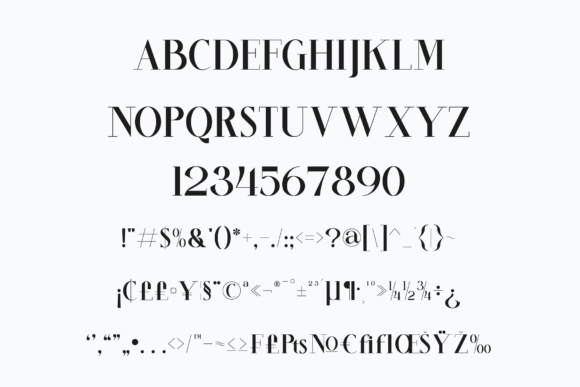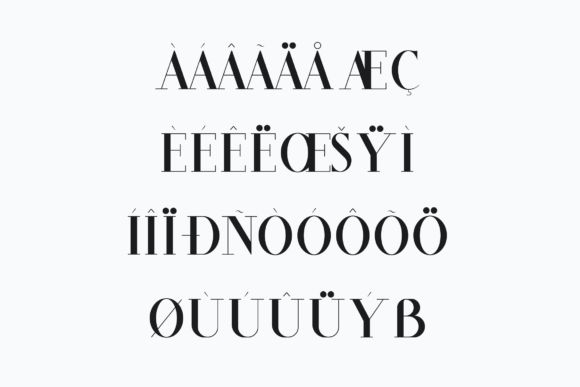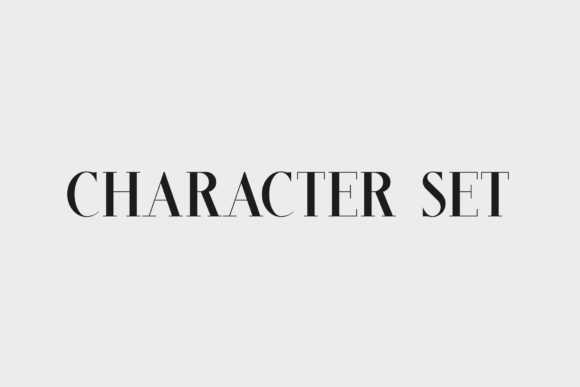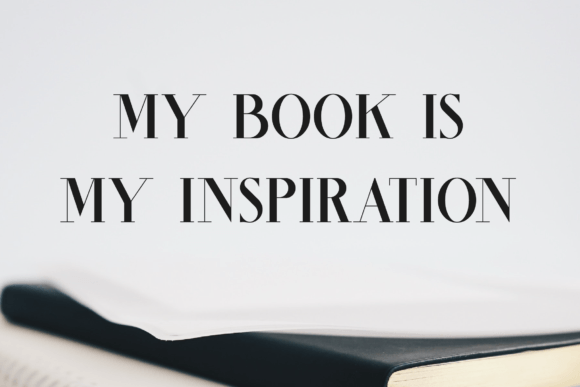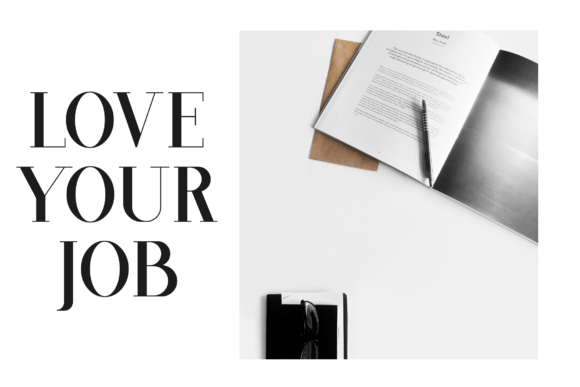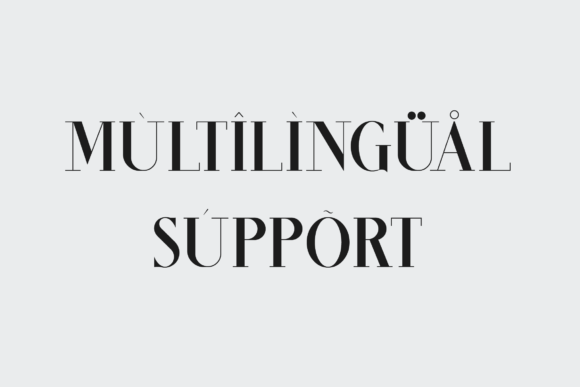
Cintary Font: Elevate Your Designs with Elegance and Sophistication
In the world of typography, fonts play a crucial role in conveying the tone and personality of a design. For designers and crafters seeking a stylish and elegant serif font that exudes modernity, Cintary Font is an exceptional choice. With its unique style and sophisticated look, Cintary is perfect for a wide range of applications, from logos and book or movie title designs to fashion brands, magazines, clothes, lettering, quotes, and more.
What Makes Cintary Font Stand Out?
Cintary Font boasts a distinctive serif design that sets it apart from other fonts. Its elegant lines, refined curves, and precise craftsmanship make it an ideal choice for designers who want to add a touch of sophistication to their work. The font’s modern look and feel ensure that it remains versatile and adaptable to various design contexts.
Key Features of Cintary Font
- Unique Serif Design: Cintary’s serif design is both classic and contemporary, making it perfect for designs that require a sense of tradition and modernity.
- Elegant Lines and Curves: The font’s elegant lines and refined curves create a sense of fluidity and harmony, making it ideal for designs that require a high level of sophistication.
- Modern Look and Feel: Cintary’s modern aesthetic ensures that it remains fresh and relevant, even in the most contemporary designs.
- Versatile: The font’s versatility makes it suitable for a wide range of applications, from print materials to digital designs.
Use Cases for Cintary Font
Cintary Font is an incredibly versatile typeface that can be used in various design contexts. Here are some of the most popular use cases:
- Logos: Cintary’s elegant design makes it perfect for logos that require a sense of sophistication and refinement.
- Book or Movie Title Designs: The font’s classic and modern look makes it ideal for book or movie title designs that require a sense of drama and elegance.
- Fashion Brands: Cintary’s stylish and modern aesthetic makes it perfect for fashion brands that require a sense of luxury and sophistication.
- Magazines: The font’s readability and elegance make it suitable for magazine designs that require a sense of refinement and culture.
- Clothes: Cintary’s stylish design makes it perfect for clothing brands that require a sense of fashion and elegance.
- Lettering: The font’s elegant lines and curves make it ideal for lettering designs that require a sense of sophistication and refinement.
- Quotes: Cintary’s classic and modern look makes it perfect for quotes that require a sense of drama and elegance.
Tips for Using Cintary Font Effectively
To get the most out of Cintary Font, here are some tips for using it effectively:
- Pair it with Other Fonts: Cintary Font can be paired with other fonts to create a unique and visually appealing design.
- Experiment with Different Sizes: The font’s versatility makes it suitable for use in various sizes, from large headlines to small body text.
- Use it for Emphasis: Cintary’s elegant design makes it perfect for use in emphasis, such as headings and titles.
Cintary Font is a stylish and elegant serif font that offers a unique and modern look. Its versatility, readability, and sophistication make it perfect for a wide range of design applications, from logos and book or movie title designs to fashion brands, magazines, clothes, lettering, quotes, and more. With its exceptional design and adaptability, Cintary Font is an excellent choice for designers and crafters seeking to elevate their designs with elegance and sophistication.